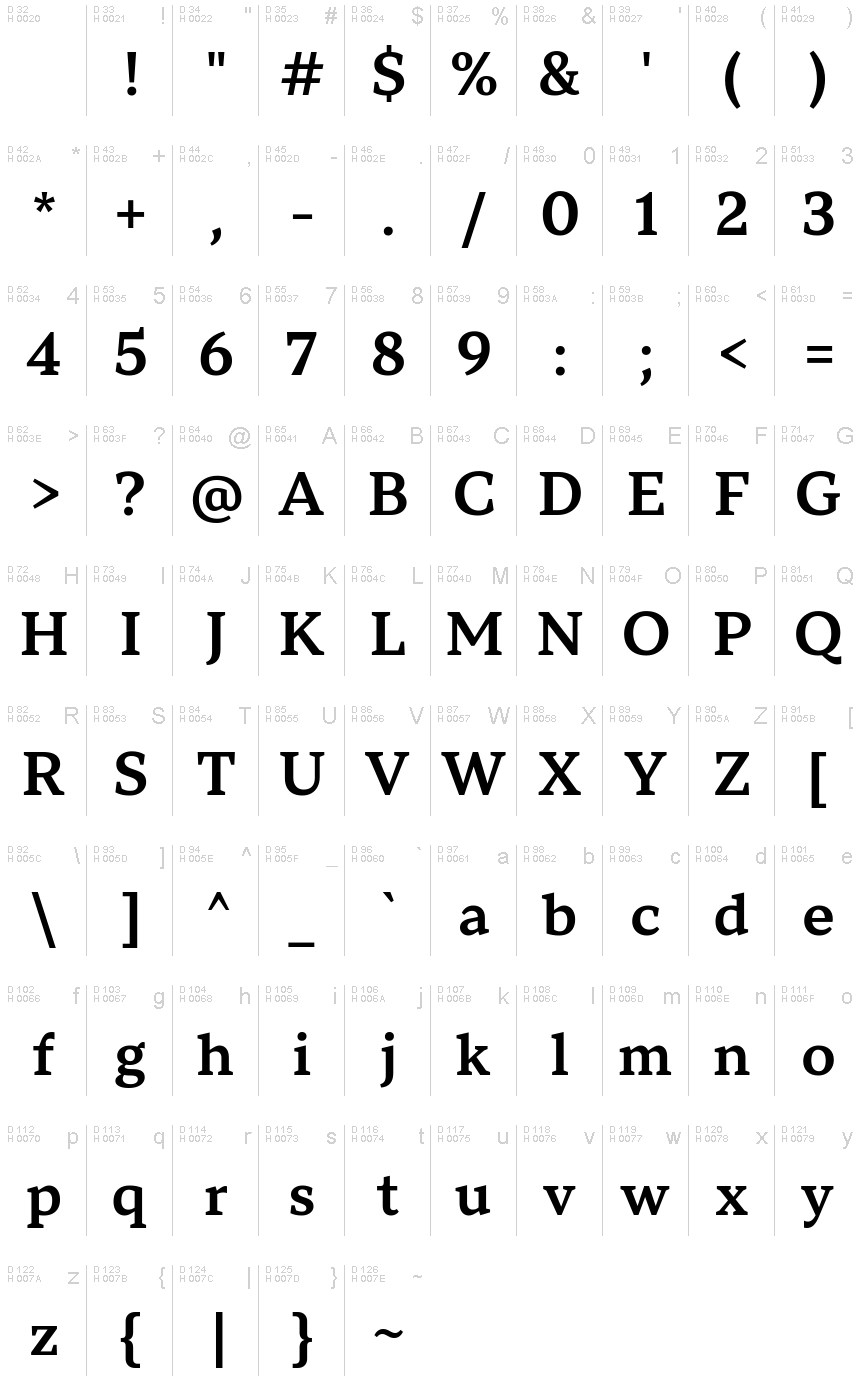
TT Norms Pro Serif Trl Db
TT Norms Pro Serif Db font, part of the TT Norms Pro Serif family designed by TypeType Foundry, exudes sophistication with its elegant serif style. Its distinct characteristics elevate design aesthetics, featuring a beautifully balanced form that blends modernity with classic appeal. The font’s graceful curves and substantial weight create an inviting presence, perfect for impactful headlines or refined editorial work.
Visually striking and versatile, this font adapts seamlessly across various contexts—from stylish branding to immersive book layouts. Its unique blend of tradition and contemporary flair makes it an excellent choice for conveying both authority and elegance in any design project. Embrace the distinct charm of TT Norms Pro Serif Db to enhance your creative endeavors with timeless sophistication.